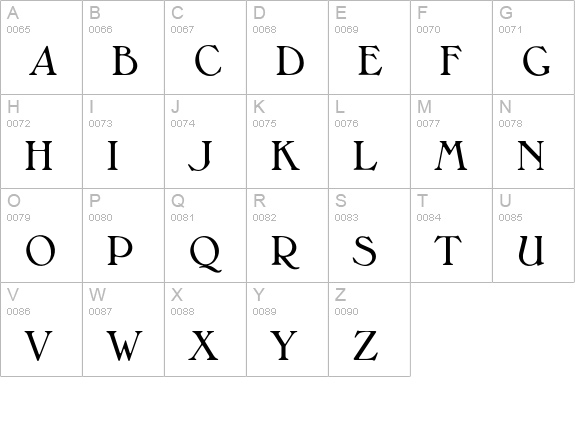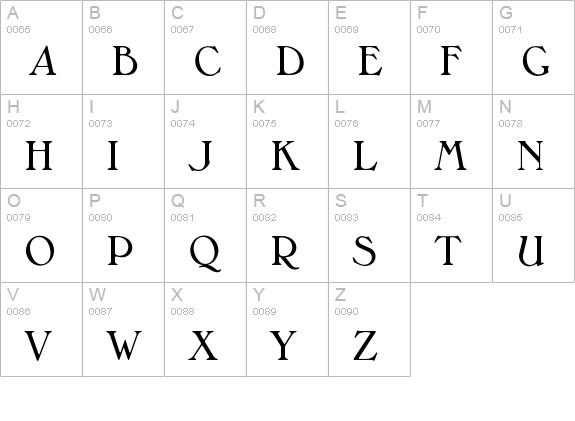
Melborne-Medium Font Details
Melborne-Medium is a balanced, medium-weight variant in the Melborne typeface family \xE2\x80\x94 well suited to sub-headlines, navigation, and balanced editorial work.
Melborne-Medium is a versatile and elegant font that strikes the perfect balance between sophistication and readability. Its clean and modern design makes it suitable for a wide range of design projects, from branding to editorial design. The sleek lines and rounded edges of Melborne-Medium give it a timeless appeal that is sure to enhance any project it is used in. What makes Melborne-Medium even more appealing is that it is available for free download at FontsMarket.com. This means that you can easily access this high-quality font without any cost, making it a valuable addition to your font collection. With its classic yet contemporary style, Melborne-Medium is a must-have font for any designer looking to elevate their work to the next level.